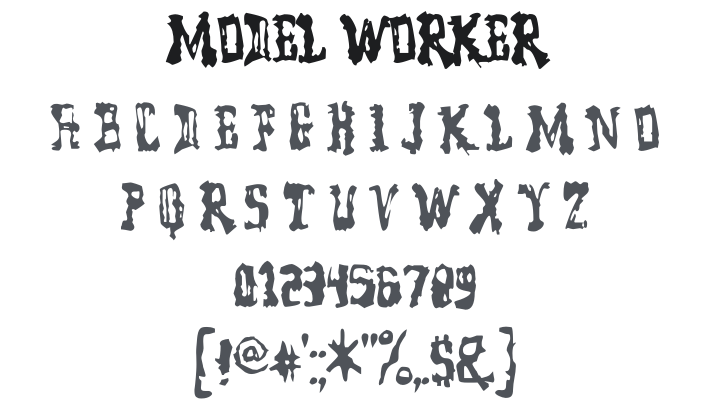
Model Worker Font
About Model Worker
Model Worker is a rough, scratchy display typeface with a deeply personal origin — Ray Larabie literally created it by scraping paint off a school locker with a key. The result is a bold with raw, gouged letterforms where strokes look physically stripped away, leaving jagged exposed edges. Perfect for industrial designs, underground posters, gritty urban branding, and any headline needing authentic, vandal-made attitude.